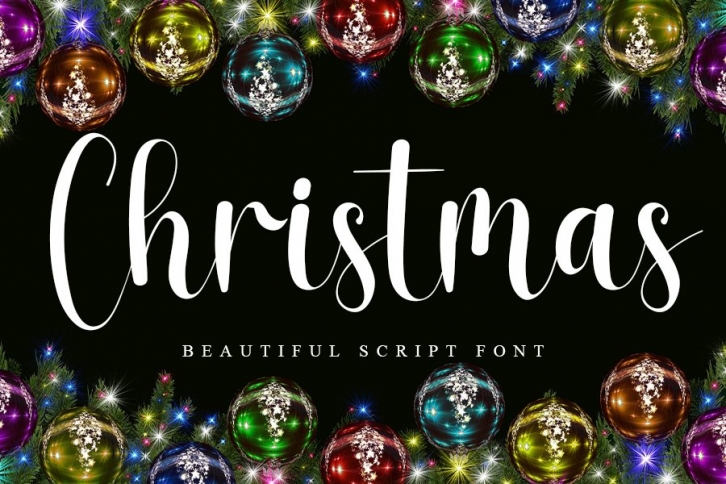
Christmas is a great font that was designed by KINSTUDIO. Imagine the amount of combinations you can create using this font! The archive is 7.96 MB and it was released on April 27, 2022. Christmas looks beautiful on wedding invitations, greeting cards, logos, posters, labels, t-shirt designs, logos, business cards and is perfect for use in ink or watercolor works, fashion, magazines, packaging and food menus, children's books and more!